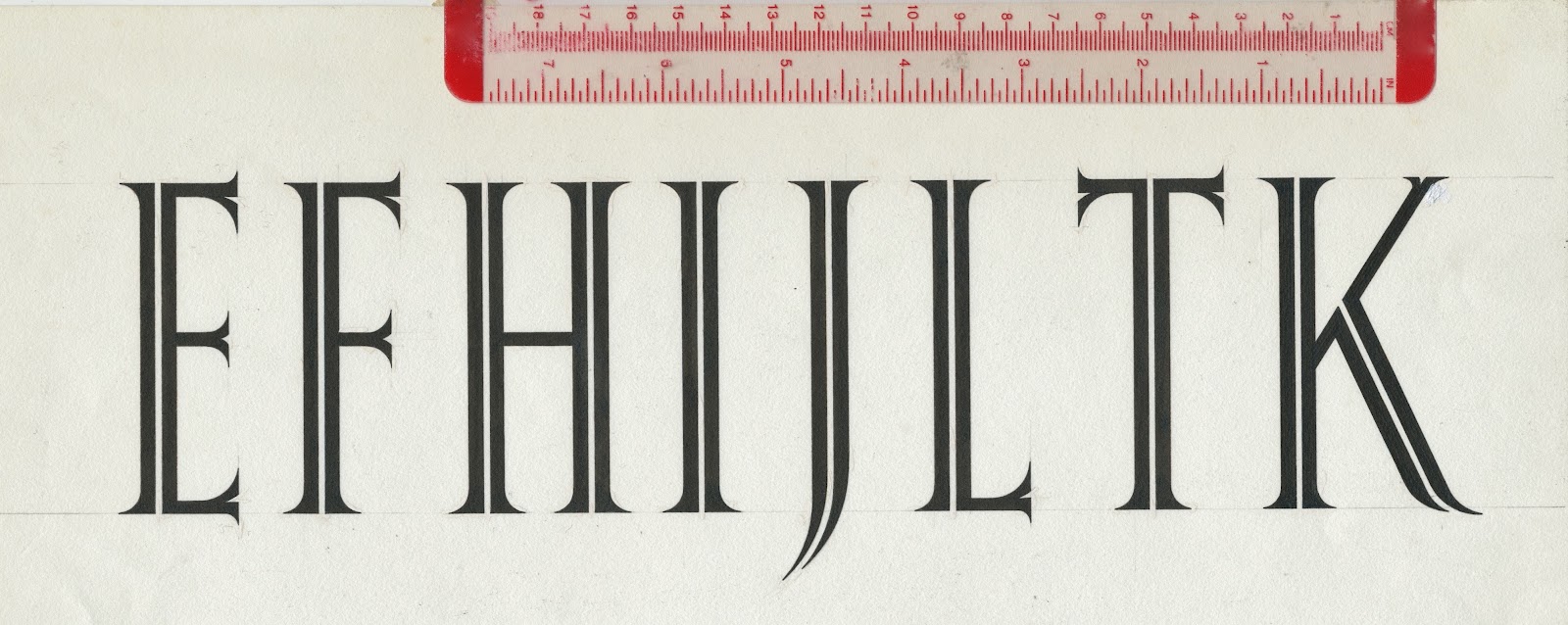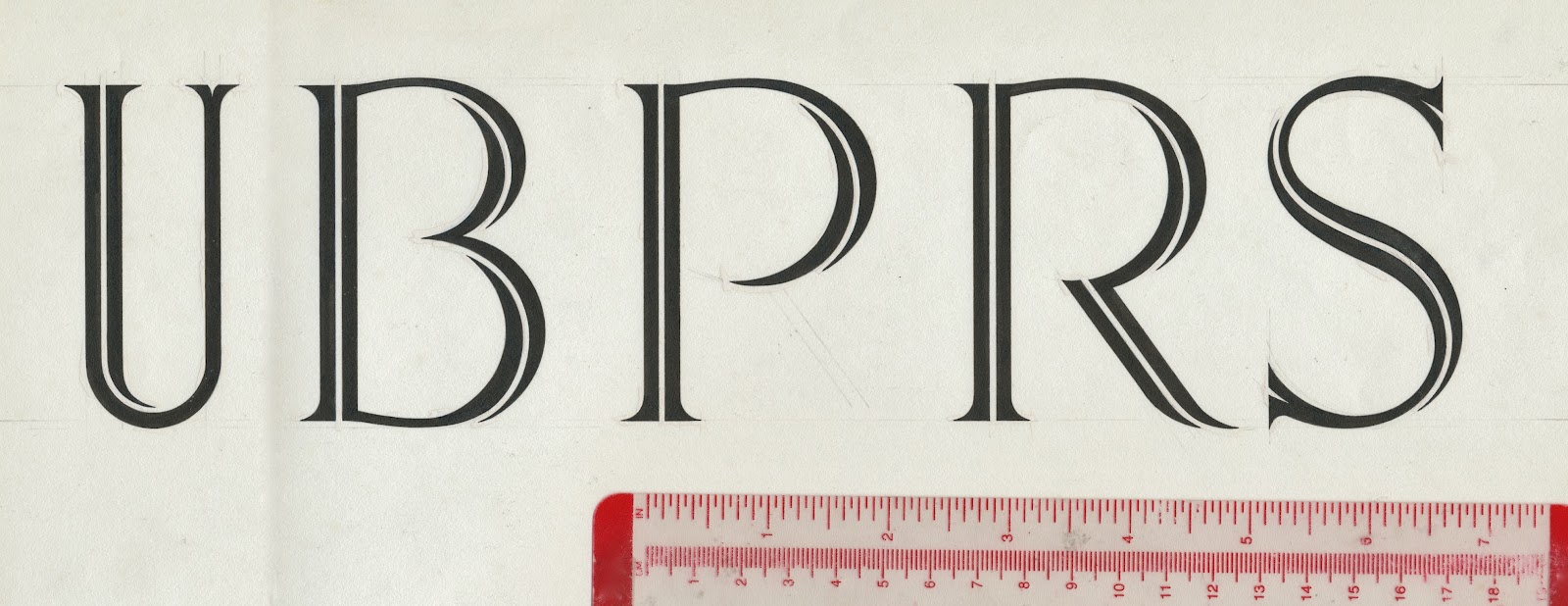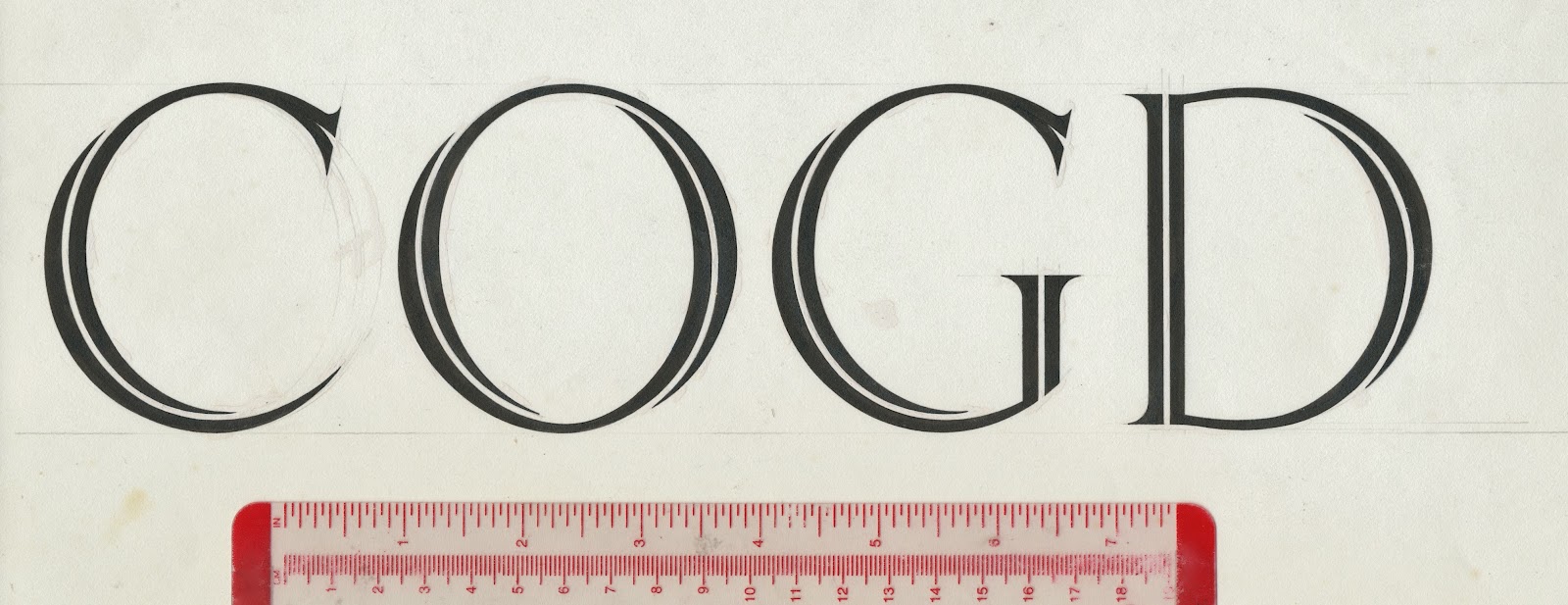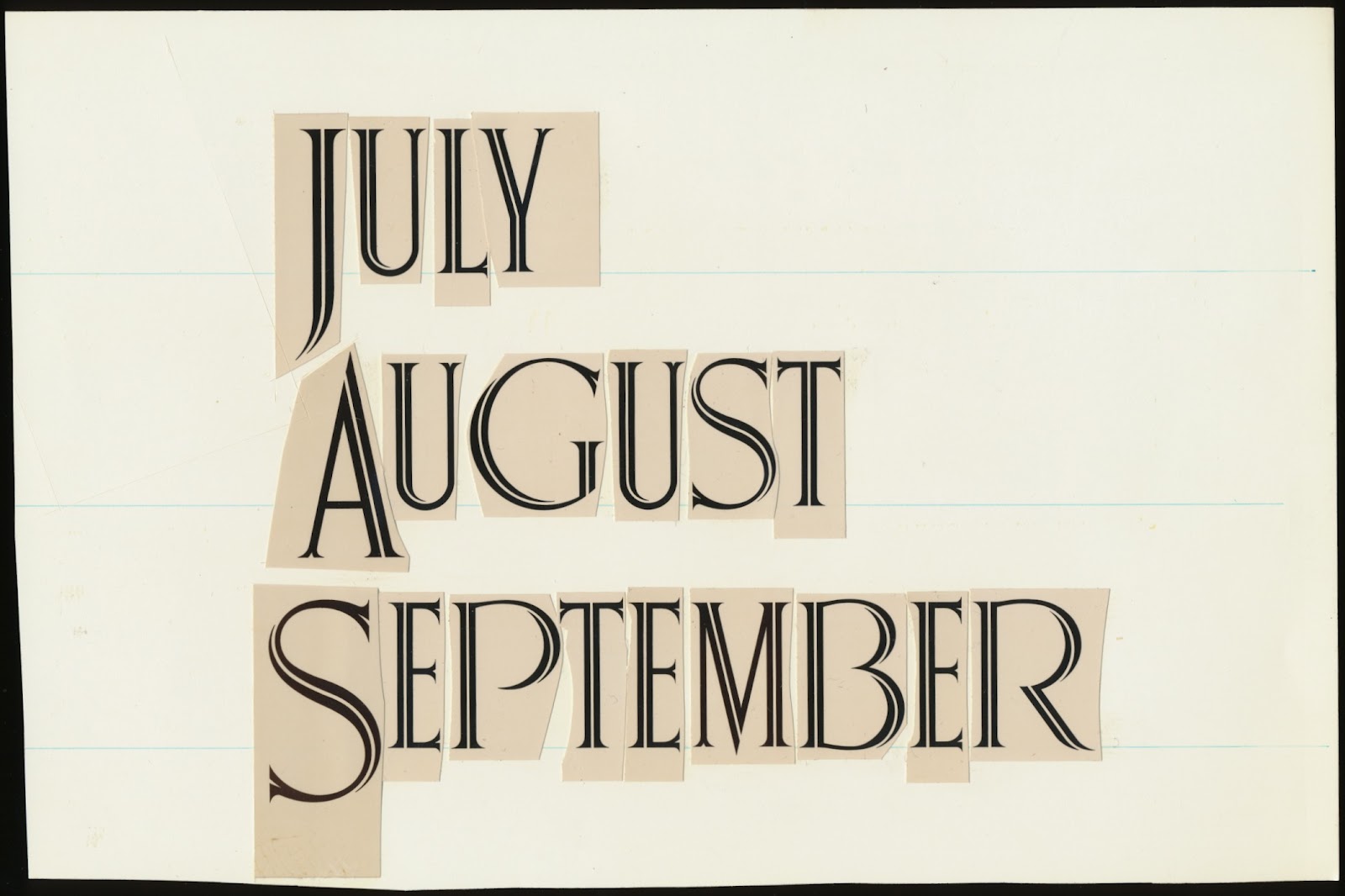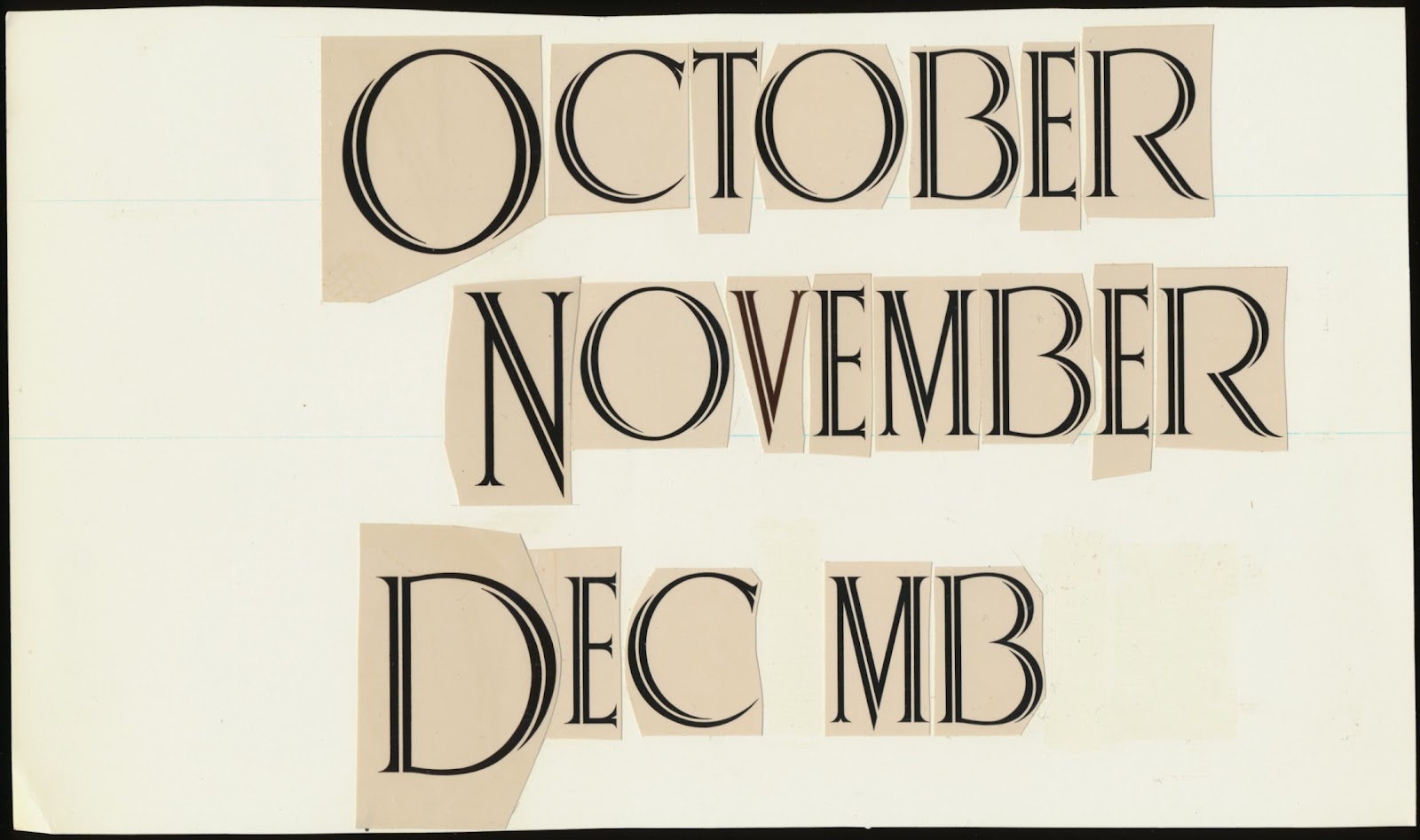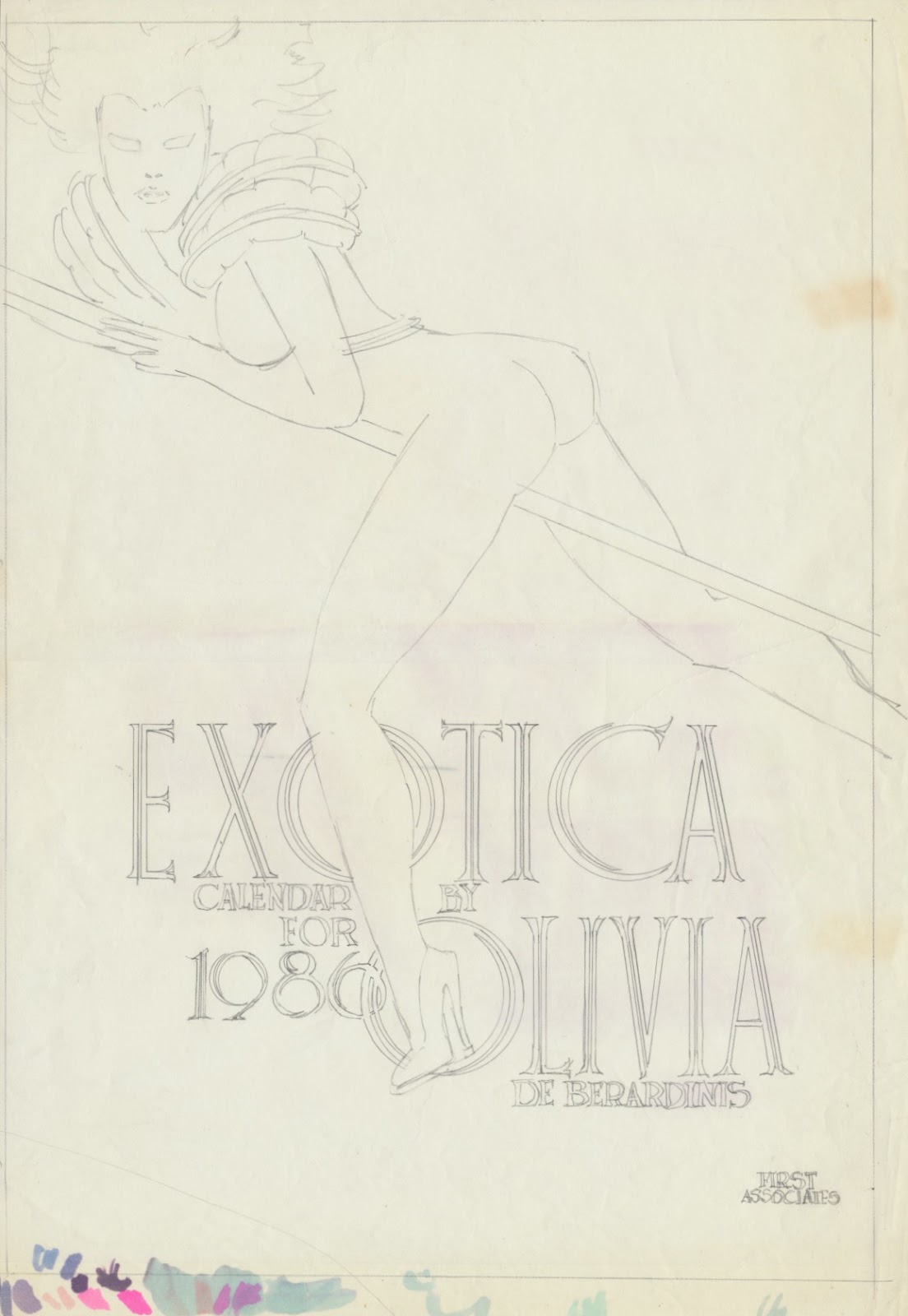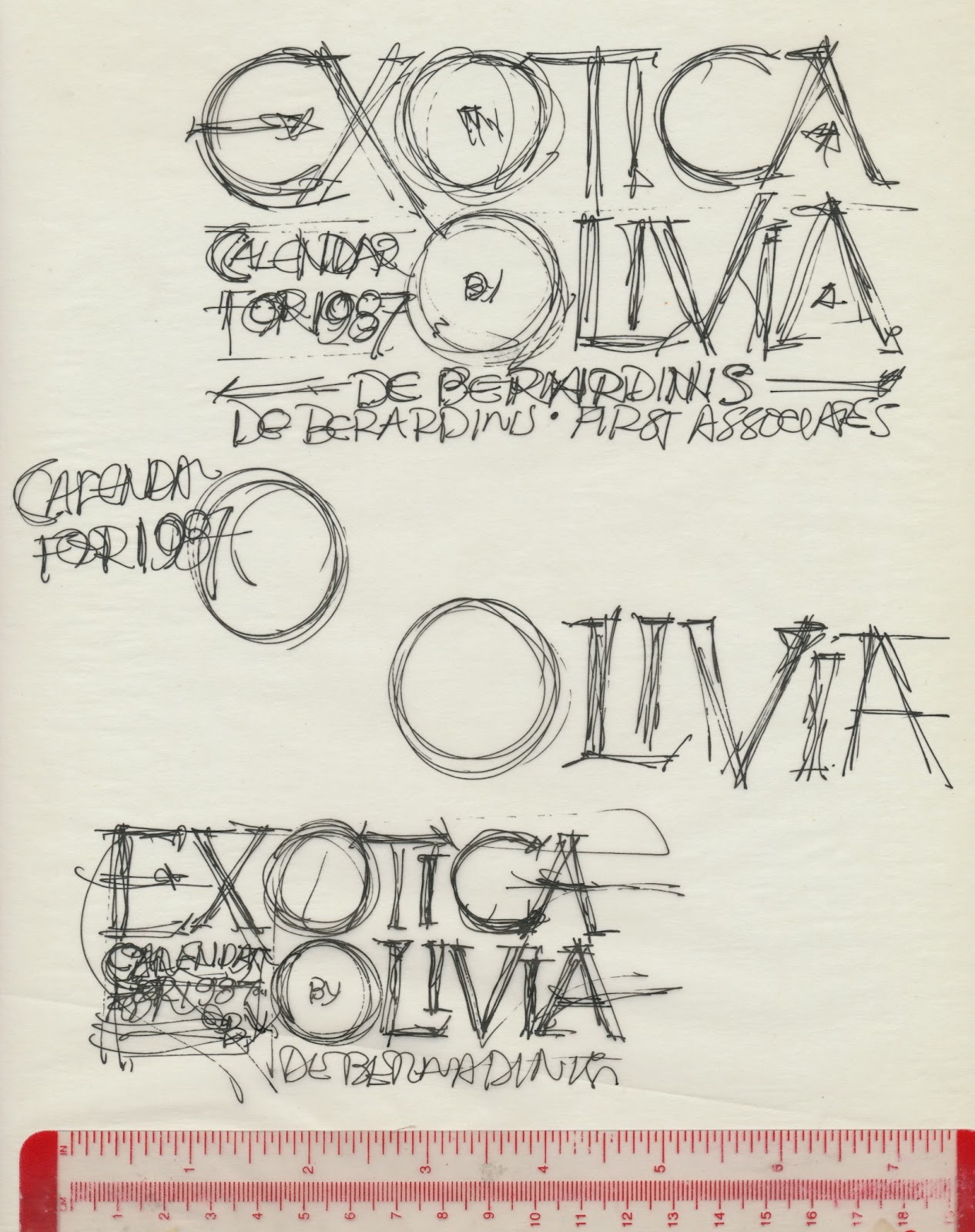
The Exotica Calendar for 1987 by Olivia DeBerardinis started at First Publishing. The publisher, Rick Obadiah, knew of me through Howard Chaykin who commissioned me to do the American Flagg! logo. I met Frank Miller once, in New York, before he moved to Los Angeles. During the Exotica project, I guess my name came up in regards to doing the title lettering and production for the calendar. Joel Beren, Olivia’s husband, discussed the project with me. It didn’t take much to convince me to accept the job, but it was a tight schedule to have the calendar, originally for 1986, printed in time for the 1985 holiday season.
Soon, a package arrived from First Publishing with Frank’s letter, transparencies of the art, layouts and reference material.
Some of Frank’s interior layouts.
Color comp of the front cover; the title was painted on acetate and has been flaking off.
| Back cover |
| Photocopy of the alphabet reference |
| Frank’s title design |
| Reference for the letter “O” |
| Tight pencil renderings of the title |
| Photocopy of pencilled letters partially filled-in |
| Photocopy of pencilled letters filled-in |
A last-minute addition to the front cover was “Designed by Frank Miller”. I drew the letters “K” and “Z”, nearly completing the alphabet, missing the “Q” and “W”. The “Z” was used on another project.
The letters were drawn in pencil on tracing paper, which was placed on a light box. One-ply bristol board was positioned over the tracing paper then I began inking the outlines. The next step was filling in the black areas. I used white gouache to make corrections.
Photostats of the title and months; some words are missing letters because I cannibalized them to make words for another project.
A variety type arrangements for the front cover.
| This arrangement was chosen. |